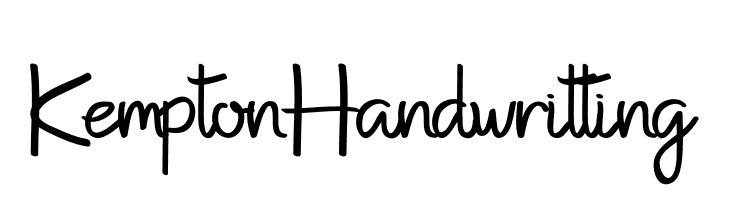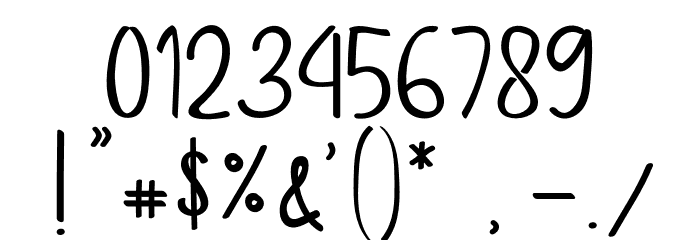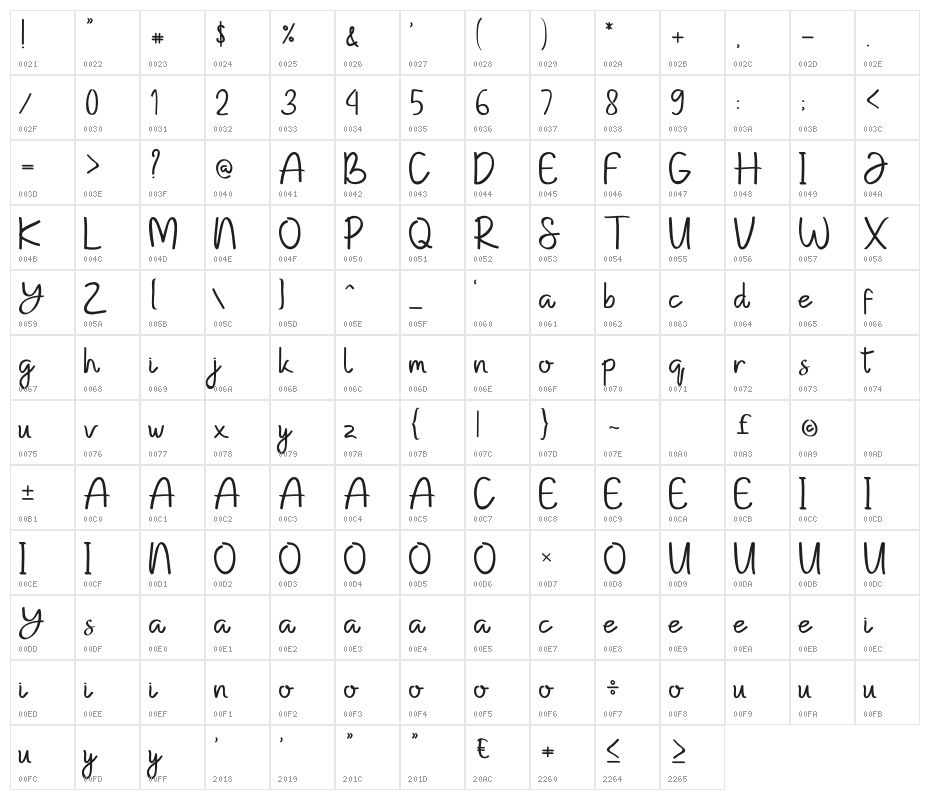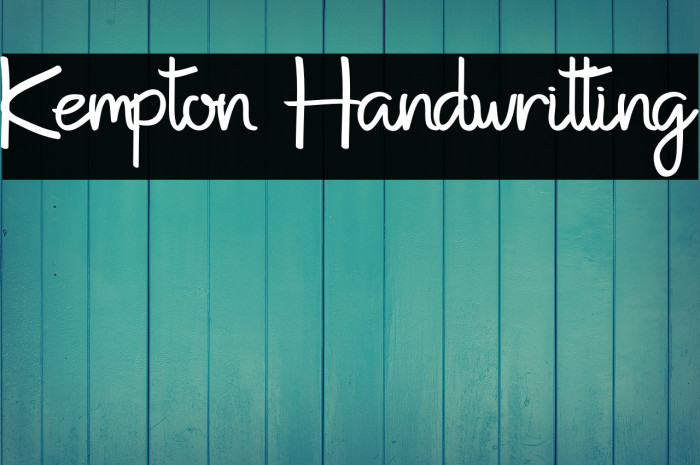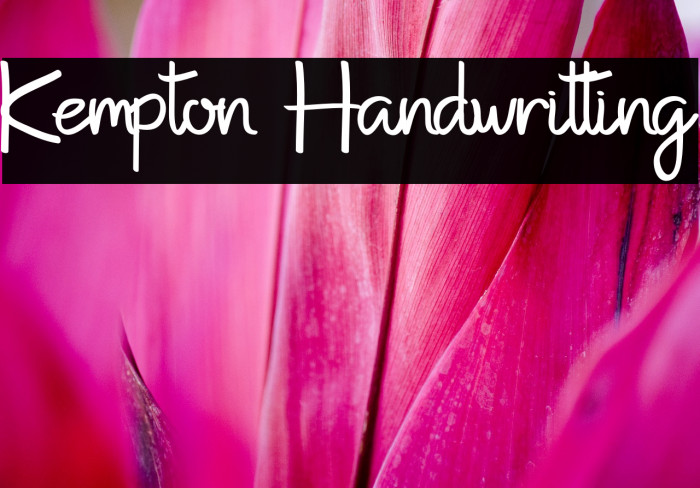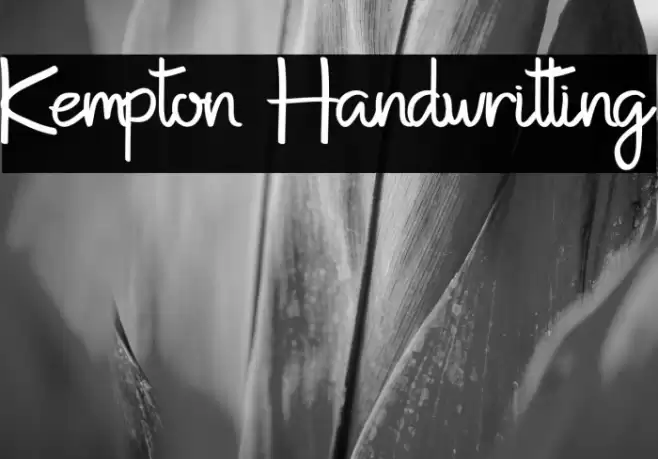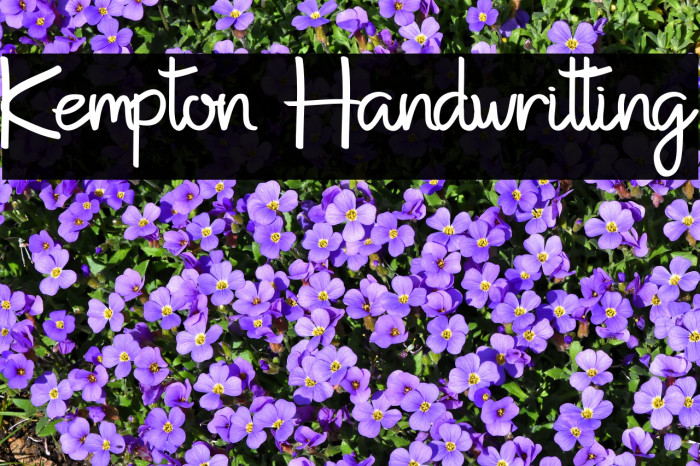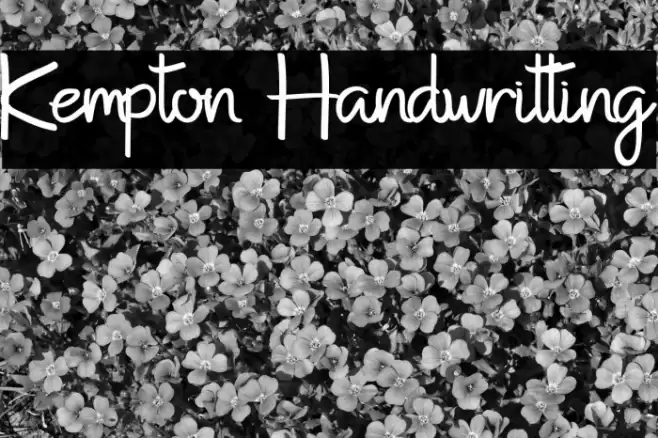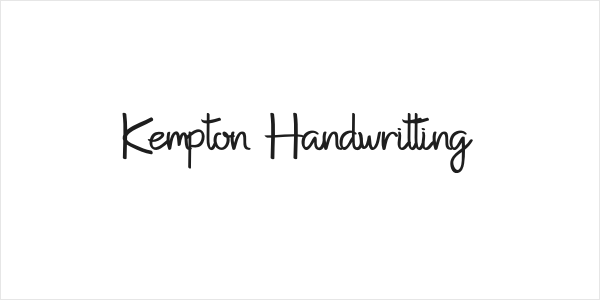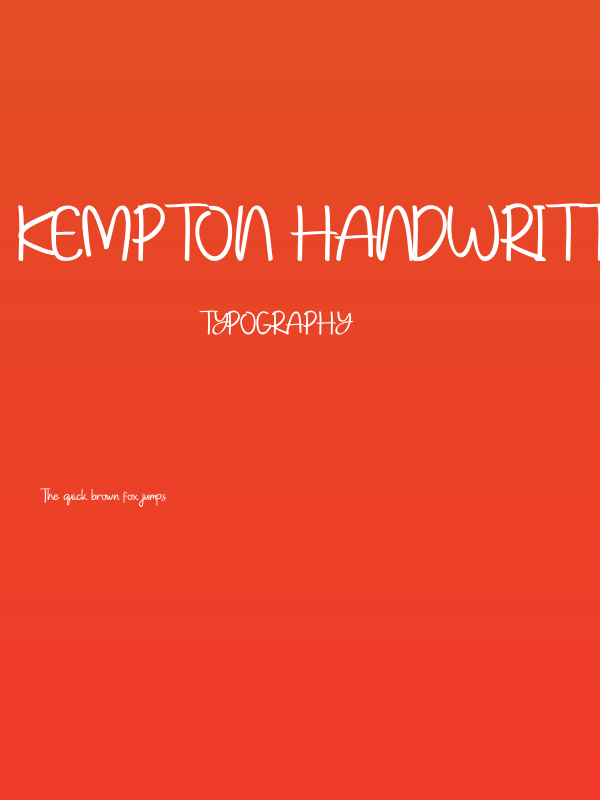
Kempton Handwritting Font
Kempton Handwritting Description
This font exudes a casual and playful handwritten style, characterized by its smooth, flowing lines and slightly irregular letterforms that mimic natural handwriting. The uppercase and lowercase letters maintain a consistent style, with rounded edges and a slight slant, giving it a relaxed and approachable feel. The numerals and special characters are crafted with the same attention to detail, ensuring uniformity across the entire character set. This font is perfect for projects that require a personal touch, such as invitations, greeting cards, or any design that aims to convey warmth and friendliness.